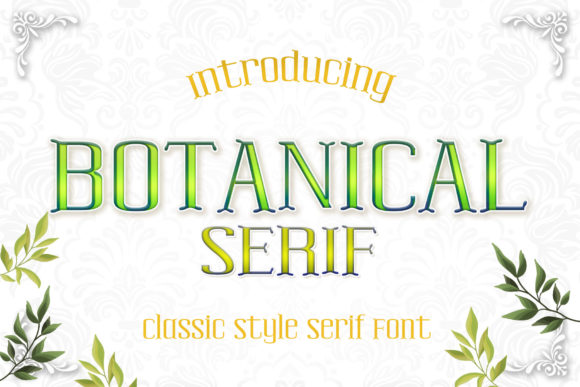
The Designer’s Delight: Exploring the Elegance of Botanical Font
I’ll never forget the time I was working on a project for a high-end client, tasked with creating a sophisticated brand identity that exuded elegance and refinement. As I scrolled through my font library, searching for the perfect match, I stumbled upon a hidden gem that stole my heart: Botanical Font. This tall and thin lettered serif font has been a game-changer in my design journey, and I’m excited to share its versatility and charm with you.
As a designer, I’m always on the lookout for fonts that can elevate my work and make it stand out. Here’s what I love about Botanical Font:
- ✨ Incredibly versatile: From elegant branding to beautiful stationery, Botanical Font adapts seamlessly to various design projects.
- ✅ Exquisite letterforms: The tall and thin serifs add a touch of sophistication, making it perfect for designs that require a high-end feel.
- 💫 Easy to read: Despite its delicate appearance, Botanical Font remains legible even at smaller sizes.
However, I do have to mention a few quirks:
- 🤔 Limited use in body text: Due to its slender design, Botanical Font might not be the best choice for lengthy paragraphs.
- ⚠️ Occasional kerning issues: As with any font, some manual kerning adjustments might be necessary to achieve optimal results.
- Experiment with OpenType features, such as ligatures and stylistic alternates, to add an extra layer of elegance to your design.
The Story Behind Botanical Font
Legend has it that the creator of Botanical Font, a talented type designer, was inspired by the intricate details of botanical illustrations. With a passion for botany and typography, they aimed to craft a font that would evoke the same sense of elegance and refinement found in nature. And so, Botanical Font was born – a beautiful blend of classic serifs and modern sophistication.
Q: Is Botanical Font suitable for body text?
A: While Botanical Font is beautiful, it’s not the best choice for lengthy paragraphs. Its slender design might make it difficult to read in large blocks of text.
Q: Does Botanical Font support OpenType features?
A: Yes, Botanical Font supports OpenType features, including ligatures, stylistic alternates, and glyphs. Experiment with these features to add an extra layer of elegance to your design.